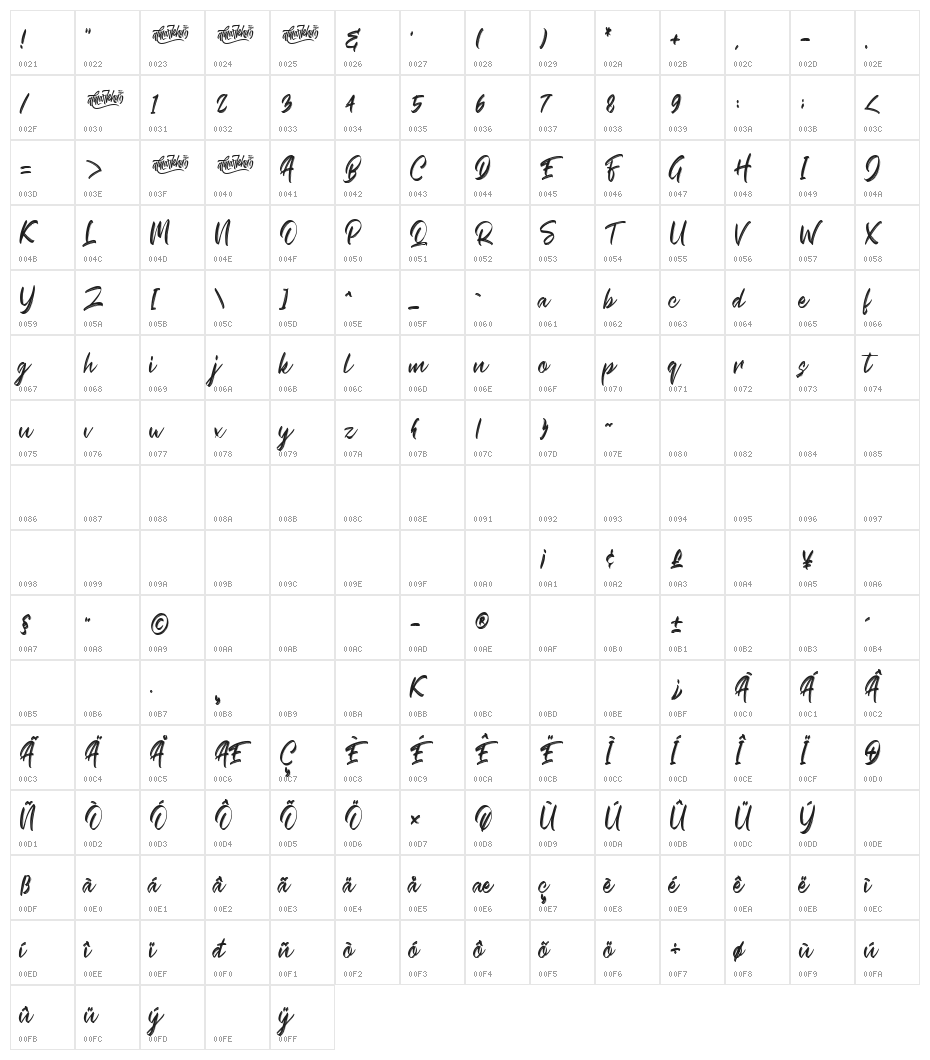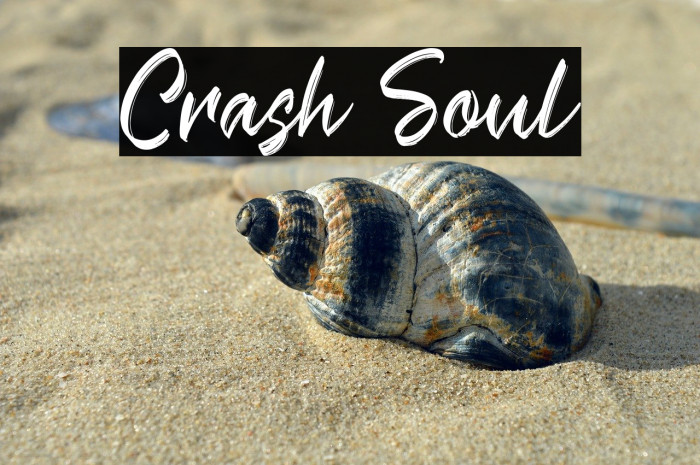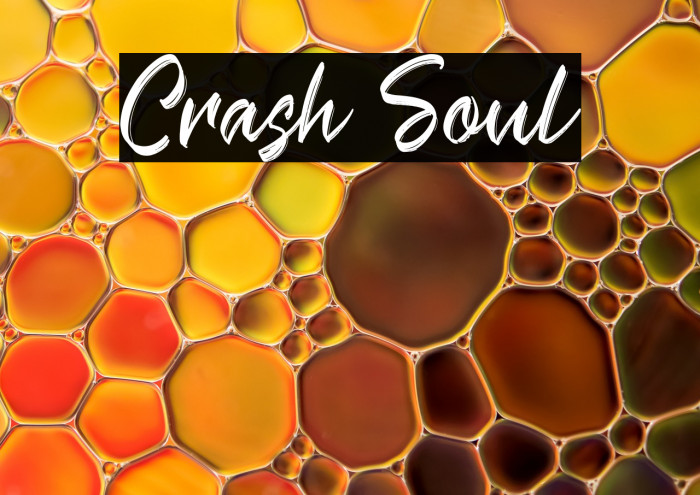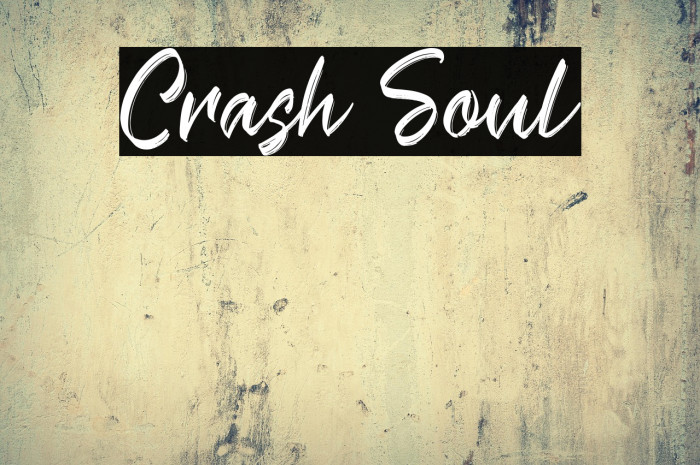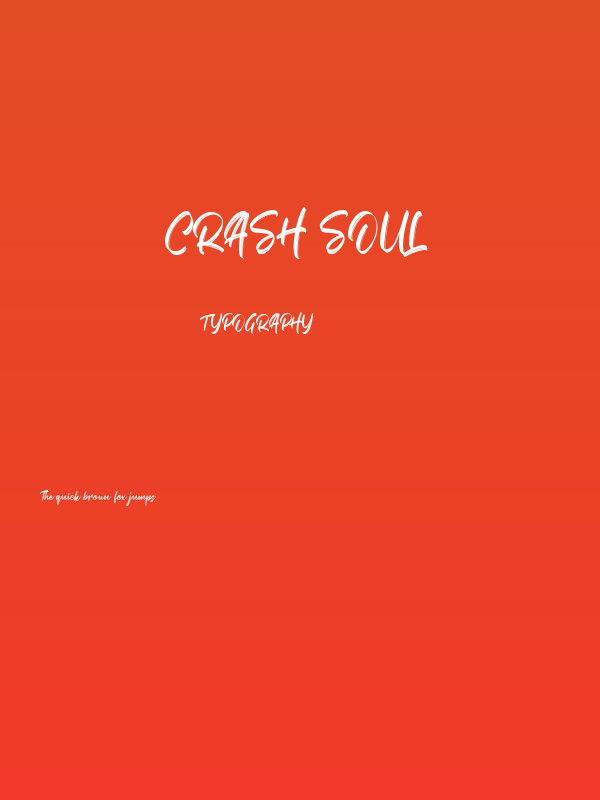
Crash Soul Font
Crash Soul Description
This font features a dynamic and expressive script style with a bold, brush-like appearance. The uppercase letters are characterized by their sweeping, fluid strokes, giving a sense of movement and energy. The lowercase letters maintain this fluidity, with elegant curves and connections that create a cohesive look. Numbers and special characters are designed with the same bold, artistic flair, ensuring consistency across all glyphs. The overall design is modern and eye-catching, making it suitable for projects that require a strong visual impact.
| Proposed Projects | Ideal for branding, logos, posters, and any design needing a bold, artistic touch. |